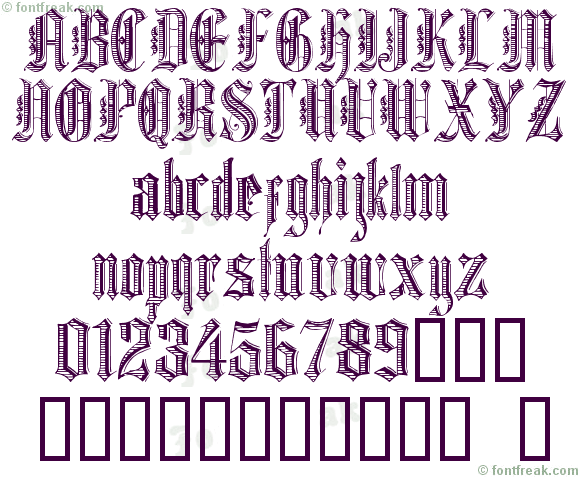
Grafik Text
About Grafik Text
Grafik Text by Lime is a captivating decorative font that combines the charm of historic typography with modern versatility. This freeware typeface features intricate details that make it stand out, characterized by its unique stroke weights and contrasting styles. The letters exhibit a blend of sharp angles and soft curves, creating a visually engaging experience that captures attention. The generous spacing between the characters enhances readability while allowing the decorative elements to shine, making it a perfect choice for various creative projects.
The Grafik Text font is particularly well-suited for projects that demand a touch of elegance and flair. It excels in wedding invitations, where its ornate design can evoke a sense of romance and sophistication. Additionally, this font finds its place in movie posters, adding dramatic flair to titles and taglines. Restaurant menus can also benefit from its artistic qualities, creating a memorable first impression that reflects the venue's unique atmosphere. Content creators and graphic designers will appreciate its ability to elevate branding materials, helping small business owners convey their identity with style.
The target audience for Grafik Text includes graphic designers, small business owners, and content creators who seek to make a lasting impact through their visual communications. This font allows users to express creativity while maintaining professionalism in their designs.
What sets the Grafik Text font apart is its ability to blend artistic intricacy with practical usability. The detailed elements provide a rich visual language that can enhance any project, while its freeware status makes it accessible to all. For those looking to add a distinctive touch to their designs, the Grafik Text font free download offers an opportunity to explore its unique aesthetic without constraints.